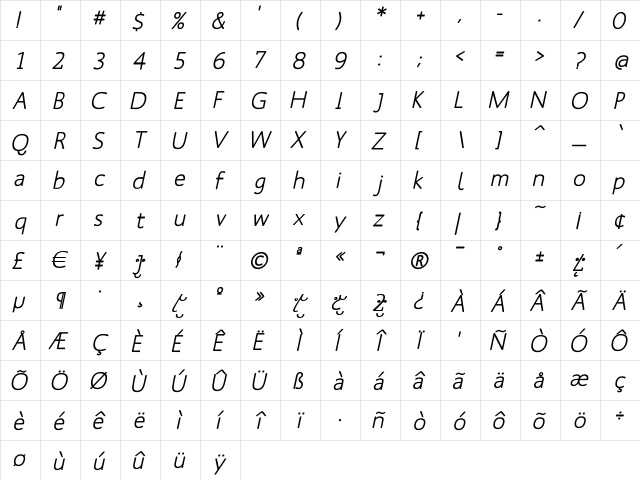
MankSans-Medium Medium Italic Font Preview
MankSans-Medium Medium Italic
Design Context for MankSans-Medium Typeface
MankSans-Medium offers clean, dependable letterforms without strong stylistic allegiance, making it a practical choice for designers who need flexibility. The dynamic lean of this cut emphasises speed and emphasis in any layout.